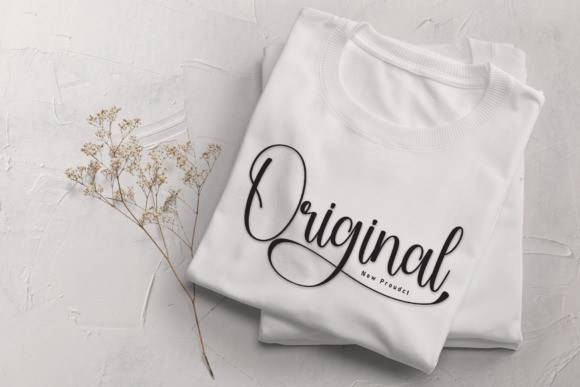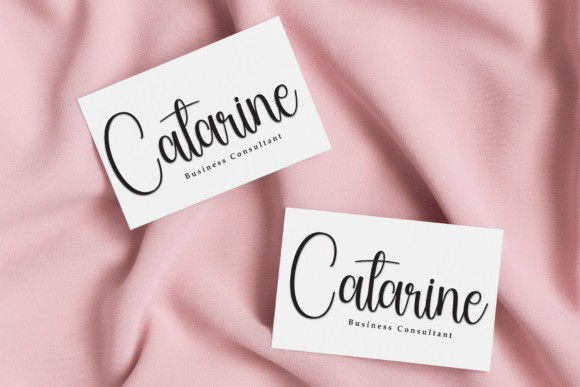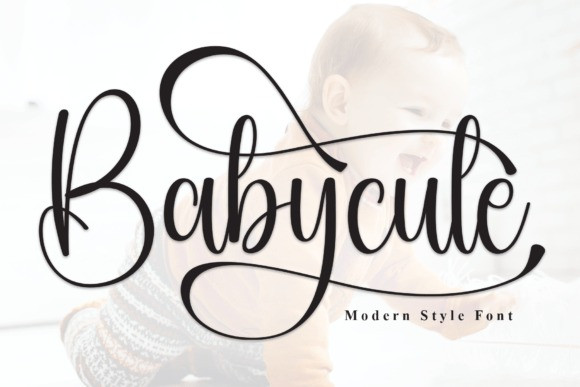
Babycute Handwriting Typeface
Babycute Handwriting Typeface is a sweet and friendly handwritten font. Its natural and unique style makes it incredibly fitting to a large pool of designs. The only limit is your imagination!